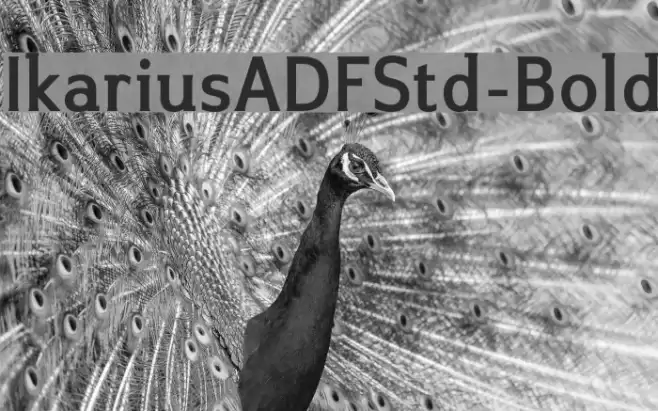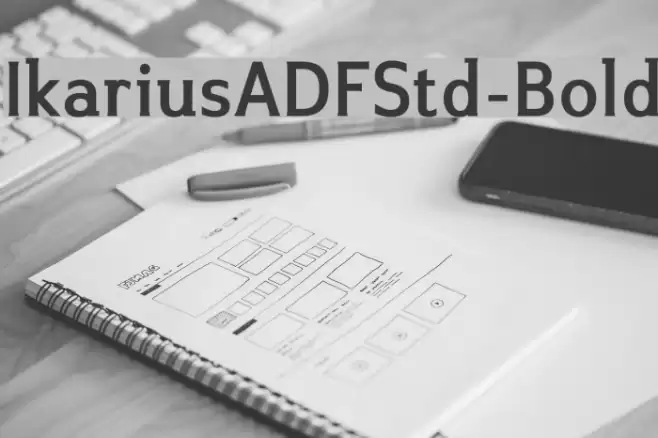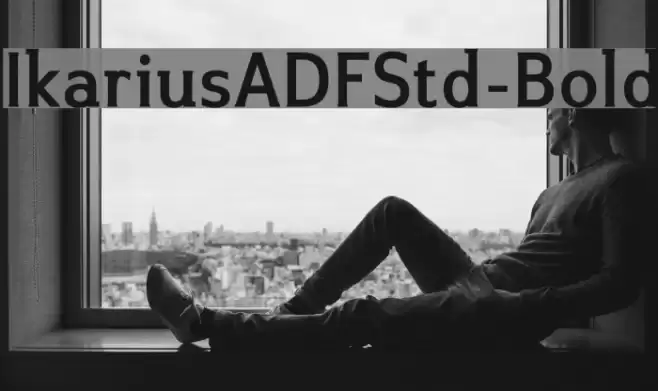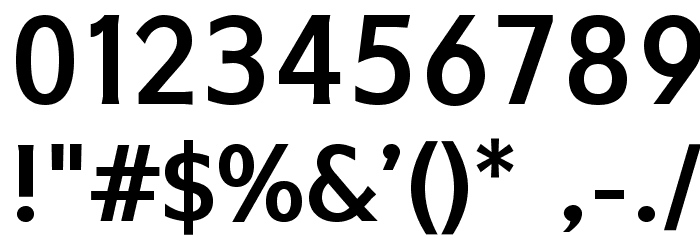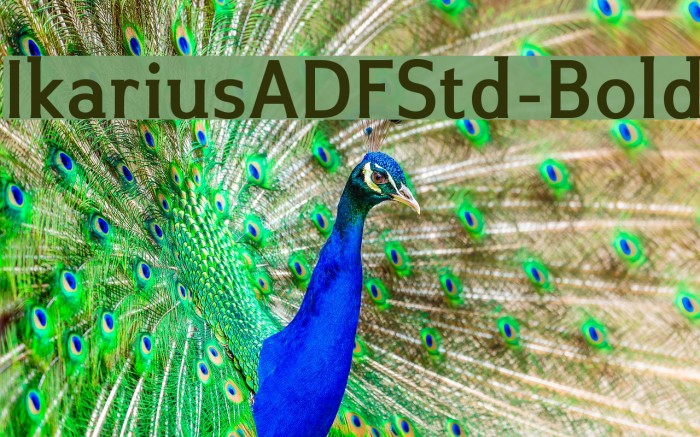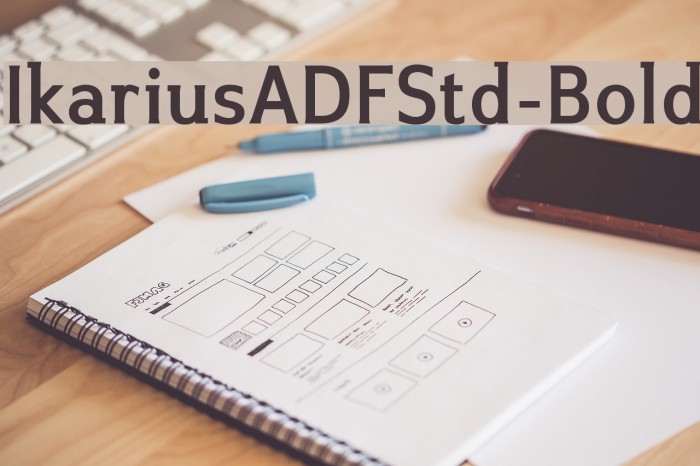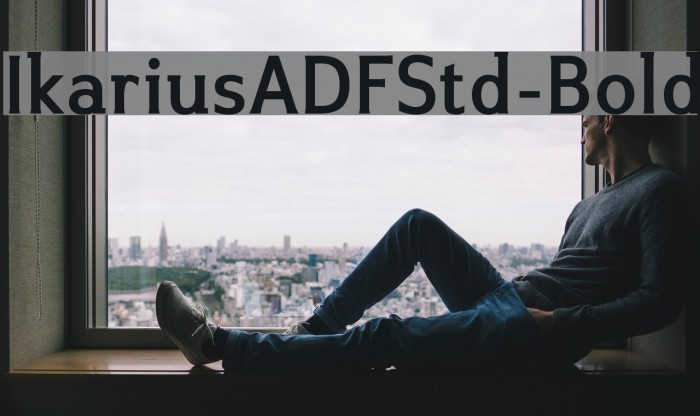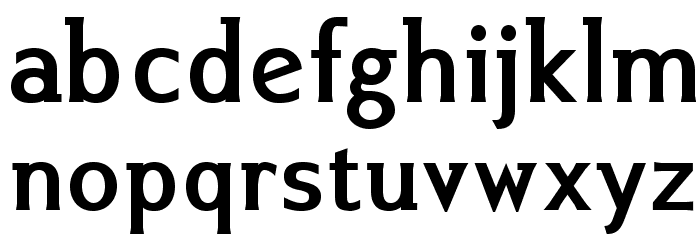
IkariusADFStd-Bold Font
IkariusADFStd-Bold Description
This font exhibits a bold and modern sans-serif style, characterized by clean lines and a strong presence. The uppercase letters are uniform and well-proportioned, while the lowercase letters maintain a consistent height and width, ensuring readability. The numerals are clear and distinct, making them suitable for various applications. Special characters are well-defined, adding versatility to the font. Overall, this typeface is designed to convey clarity and professionalism, making it ideal for both digital and print media.
A bold, modern sans-serif font with clean lines and strong presence from Uncategorized fonts.
- Proposed Projects: Ideal for branding, advertising, headlines, and digital content where a modern and professional look is desired.
- Use Case: Headlines, Logos, Digital content